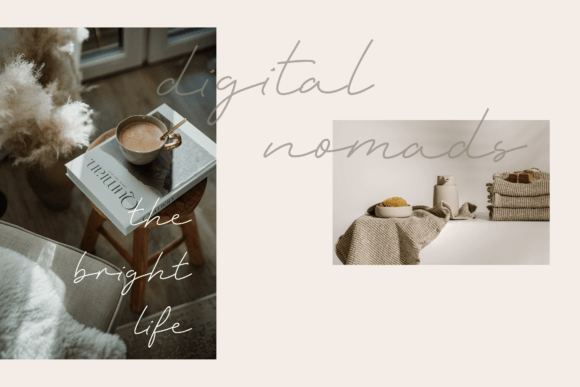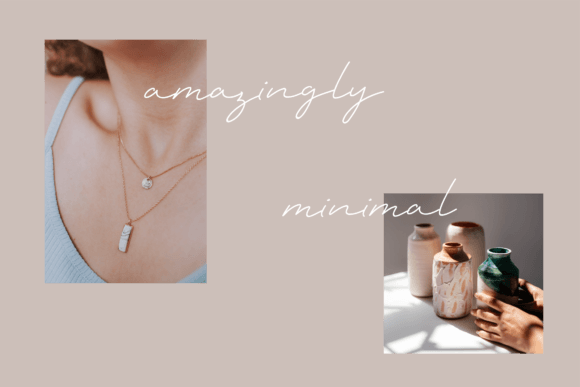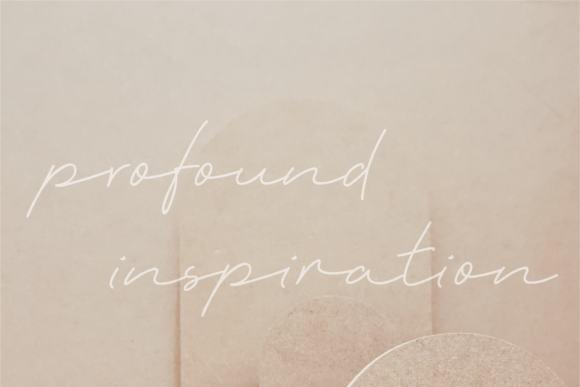
Introduction to Monoline Boho Font
Introducing Monoline Boho, a classy minimalistic script font full of character and a few twists.
It has the clean minimalism of a monoline font and the originality of handwriting This font is PUA encoded which means you can access all glyphs and swashes effortlessly.
Key Features of Monoline Boho Font